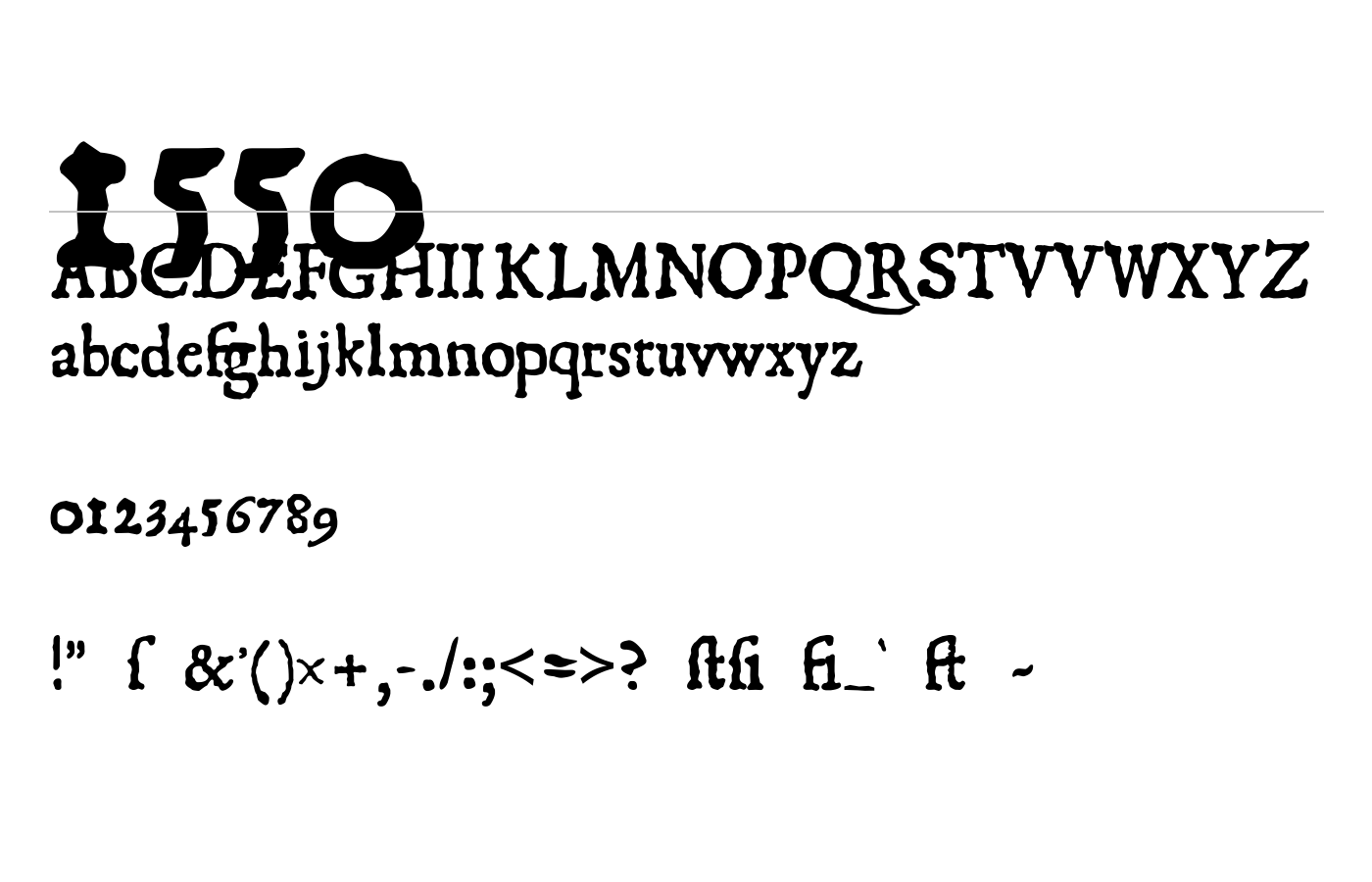
1550 Font is a distinctive serif typeface with a vintage, hand-crafted feel, featuring irregular edges and subtle stroke contrast that evoke an old-fashioned printing style. Its slightly condensed letterforms and unique character details give it a charming, rustic personality, making it ideal for designs seeking an authentic, historical, or artistic touch. This font works well in packaging, editorial headlines, and branding where a nostalgic, handcrafted vibe is desired.
1550 Font